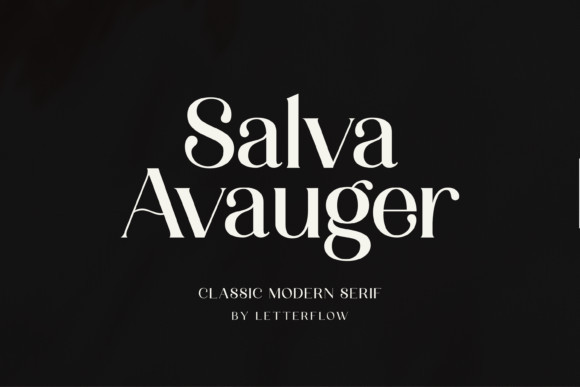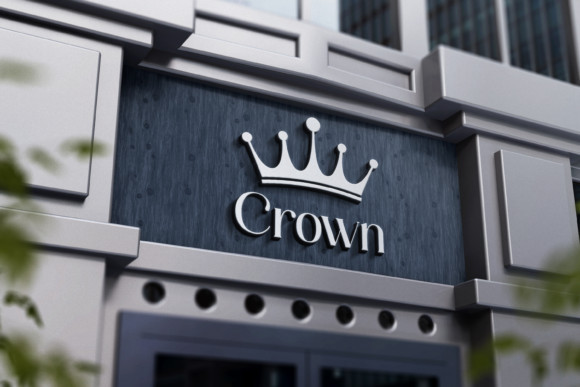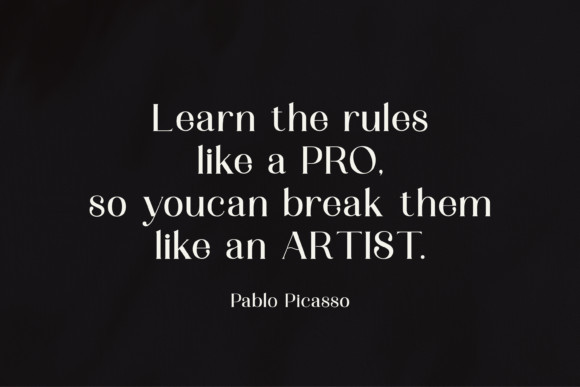
Salva Avauger Font
Salva Avauger is a classic and assertive serif font. No matter the topic, this font will be an incredible asset to your fonts’ library, as it has the potential to elevate any creation.